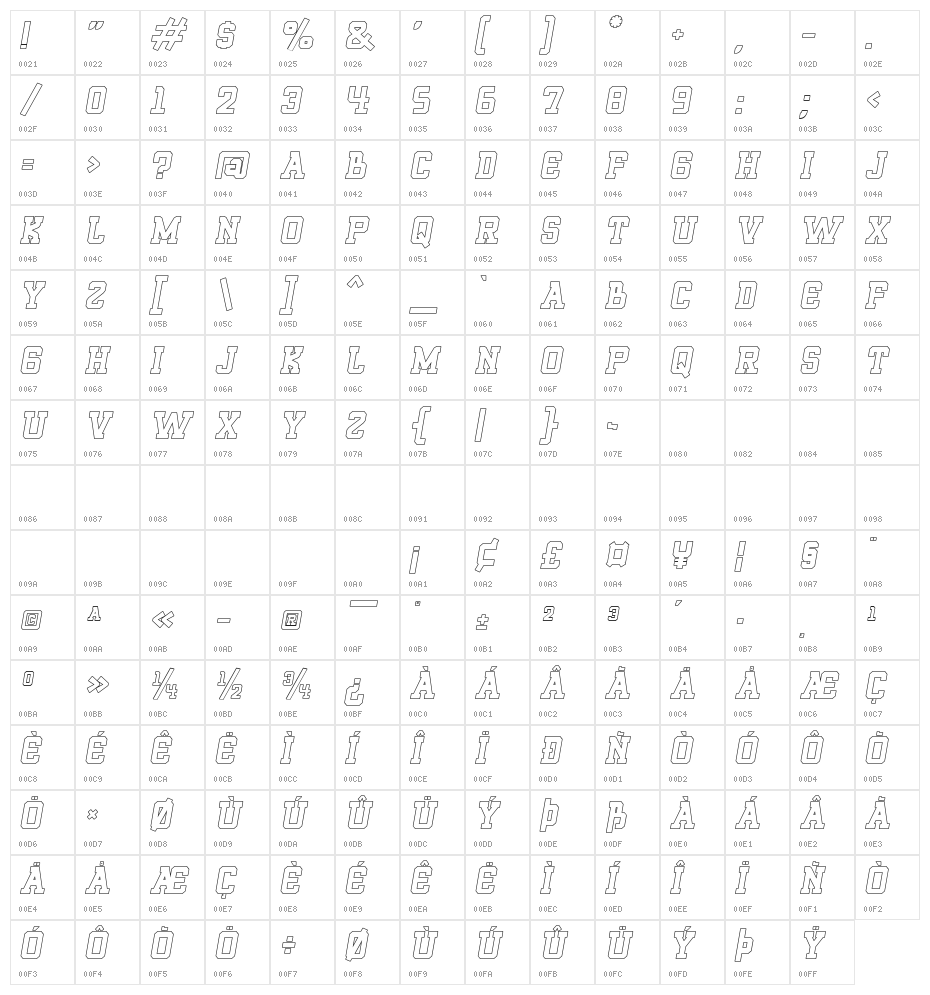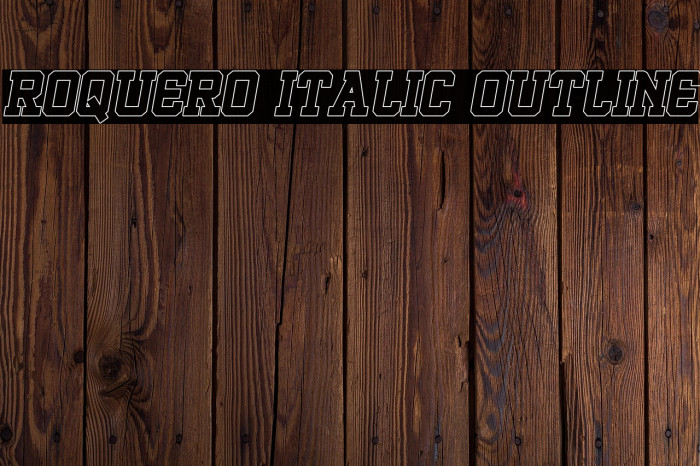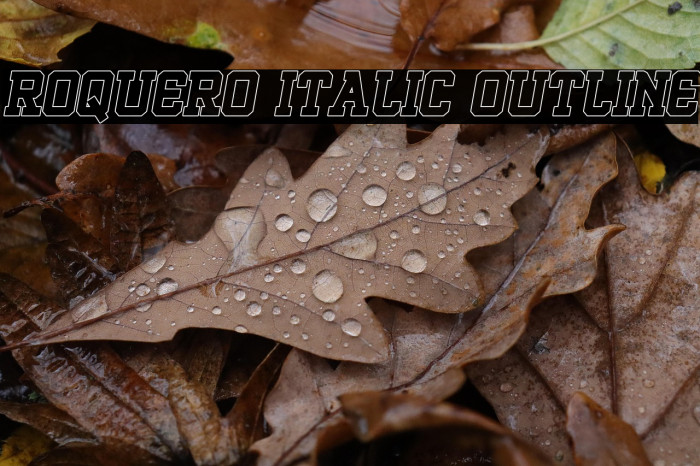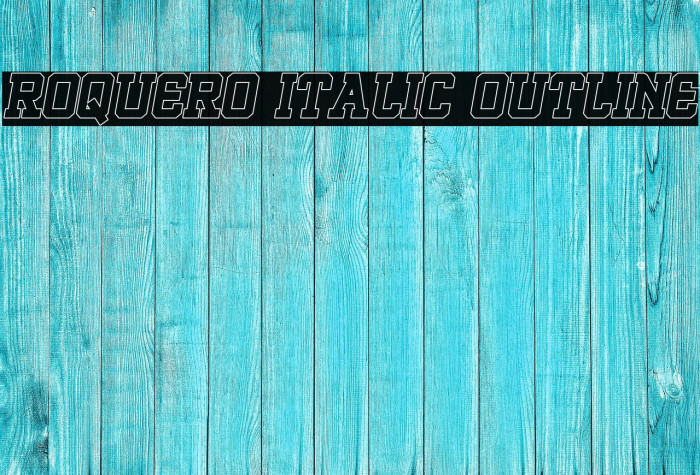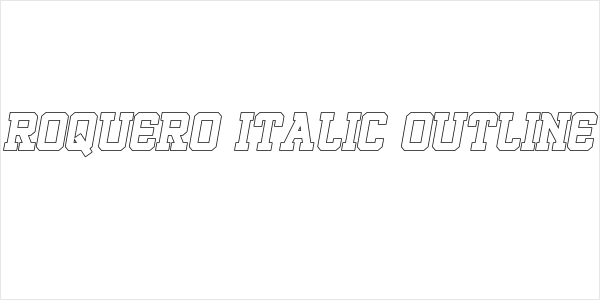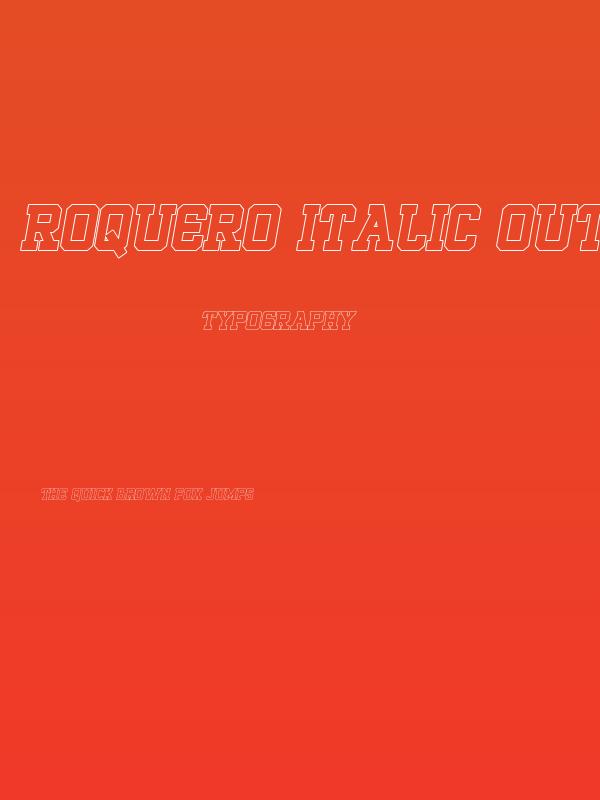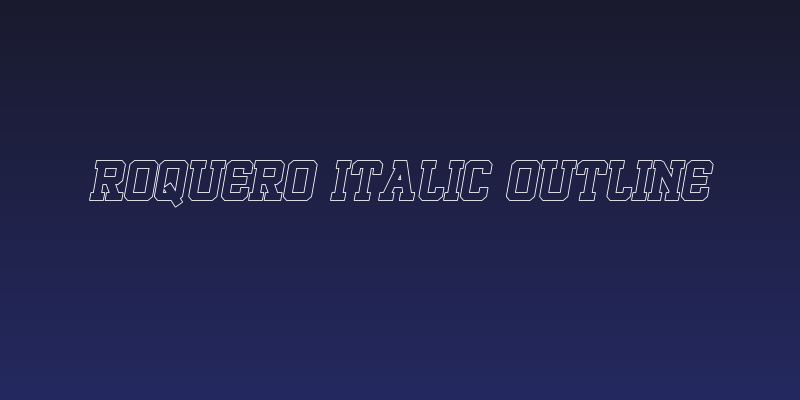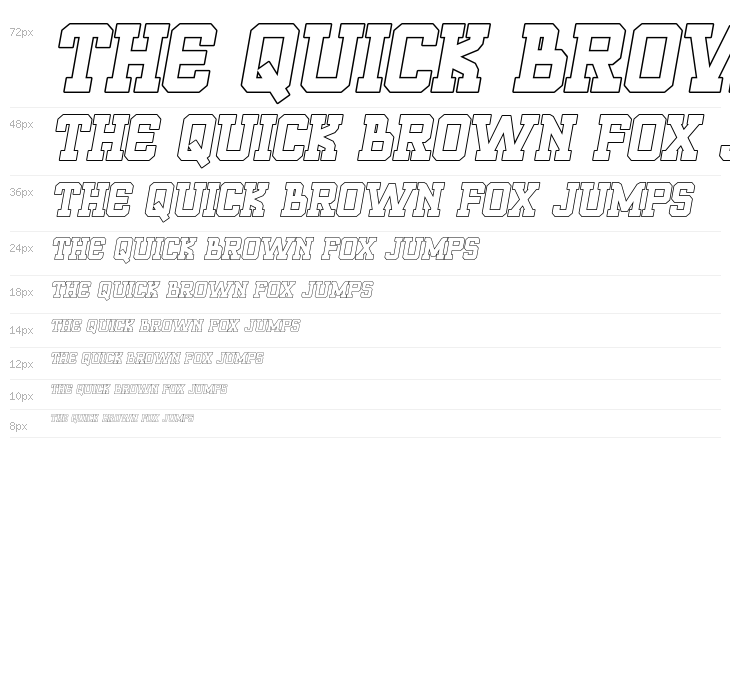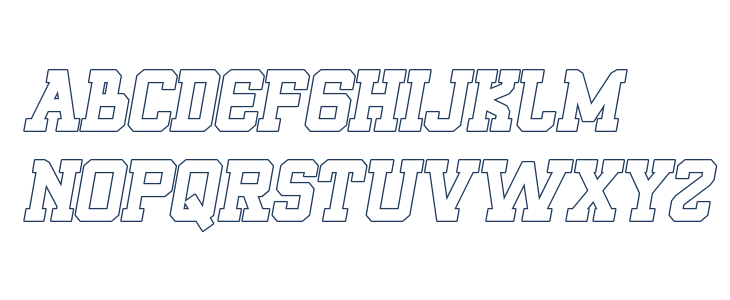
ROQUERO Italic Outline Font
ROQUERO Italic Outline Description
This font features a bold, italicized outline style that gives it a striking and dynamic appearance. The characters are designed with a strong geometric structure, providing a sense of stability and modernity. The outline effect adds depth and dimension, making it ideal for eye-catching designs. The uppercase and lowercase letters maintain a consistent style, with sharp angles and clean lines. Numbers and special characters are equally bold and well-defined, ensuring readability and versatility across various applications. The italic slant adds a sense of motion, enhancing its appeal for contemporary and energetic projects.
| Proposed Projects | Ideal for posters, logos, headlines, and branding materials that require a bold and modern touch. |